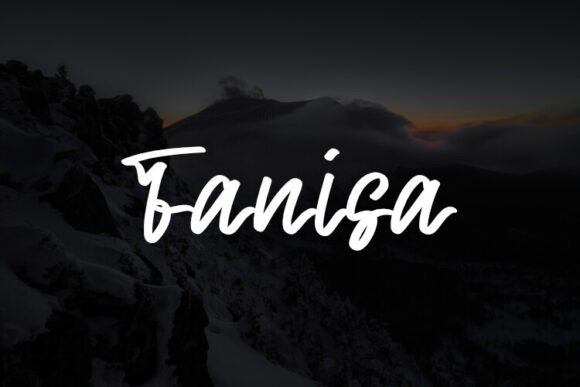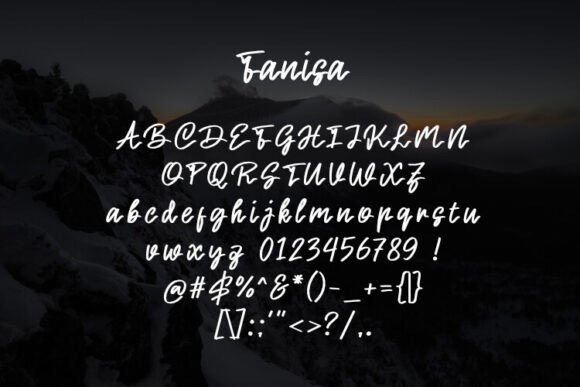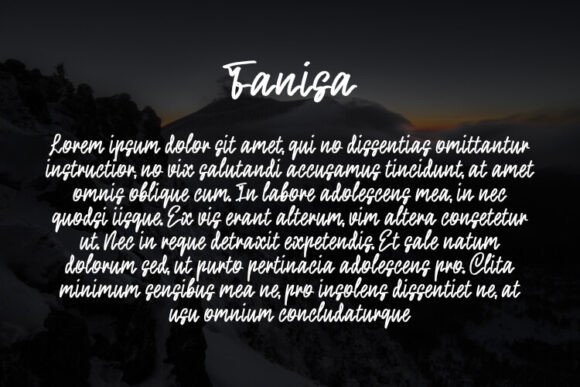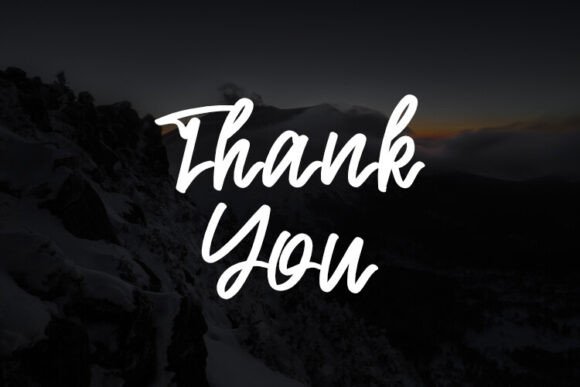
Fanisa Font: An Elegant Handwritten Script for Branding & DIY
About the Fanisa Font
The Fanisa Font is here to transform your projects with its distinctive character and style. Introducing “Fanisa”, an incredibly versatile font, perfect for infusing personality into your clothing, t-shirt, and product designs. Its adaptability makes it an excellent choice for an array of design projects and its compatibility with all software underscores its convenience. “Fanisa” comes as an otf file, ensuring easy integration into your design process. This font is truly a designer’s dream, streamlining creativity and boosting aesthetic appeal.
Fanisa’s bold, slightly playful personality makes it ideal for headlines, logos, and short-form text in branding projects, posters, and packaging. It works exceptionally well for apparel design, as initially suggested, particularly for t-shirts and labels where a strong visual impact is desired. However, its condensed letterforms aren’t well-suited to lengthy body copy or UI elements where readability is paramount.
Pairing Fanisa effectively requires considering its strong presence. A clean sans-serif like Open Sans or Lato provides a balanced contrast for body text, allowing Fanisa to shine in headlines. For a more sophisticated feel, a classic serif such as Garamond or Merriweather can create elegant juxtaposition. Avoid pairing it with other bold or highly decorative fonts to prevent visual overload.
Fanisa’s overall aesthetic is modern and energetic, making it a great choice for brands that project confidence and a youthful spirit. Think streetwear apparel, vibrant food brands, or tech startups aiming for a bold and memorable identity.